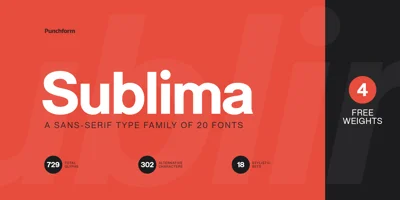
Sublima Font
Sublima Font is perfect for luxury perfume branding, high-end beauty products, elegant jewelry marketing, sophisticated wellness spas, premium lifestyle magazines, refined fashion boutiques, and sublime artistic expressions.
What makes Sublima Font exciting is its sublime elegance and transcendent beauty, featuring refined letterforms that capture the essence of elevated sophistication while delivering ethereal visual appeal and luxurious authenticity.
The Sublima Font family includes Ultra Light, Light, Regular, Medium, Bold, and Black weights, plus elegant variants and sublime alternates that enhance the font's sophisticated character and luxury possibilities.
Sublima Font embodies the pinnacle of refined elegance and transcendent beauty through exceptional typography craftsmanship. This exquisite typeface captures the sublime essence of luxury and sophisticated refinement, creating an elevated visual language that speaks to discerning audiences who appreciate the finest things in life, exceptional quality, and the transformative power of true elegance. The font's sublime character and luxurious appearance make it ideal for premium brands, luxury retailers, and sophisticated organizations that want to communicate excellence, refinement, and the elevated experience of sublime luxury.
Luxury brands and sophisticated retailers consistently select Sublima Font for projects that require authentic luxury credibility and sublime visual appeal. The typeface's refined construction and elevated personality make it exceptionally effective for high-end fashion houses, luxury beauty brands, and premium lifestyle companies where sophistication and luxurious elegance are paramount. Each character has been crafted with sublime precision to ensure maximum elegance across all luxury applications and sophisticated environments.
The luxury advantages of Sublima Font extend beyond its sublime appeal to include practical functionality for diverse premium applications. The font maintains excellent readability in upscale settings while delivering the distinctive character that creates memorable luxury experiences and connects with audiences seeking authentic sophistication and refined quality. Its comprehensive character set includes luxury symbols and elegant elements that make it particularly suitable for premium documentation and sophisticated communication.
High-end fashion houses, luxury beauty companies, and premium lifestyle brands frequently choose Sublima Font because of its ability to instantly convey sublime sophistication and luxury authenticity. The typeface's elevated aesthetic helps establish credibility in competitive luxury markets while appealing to customers who value exceptional quality, refined elegance, and the transcendent experiences that come from authentic luxury and sublime sophistication.